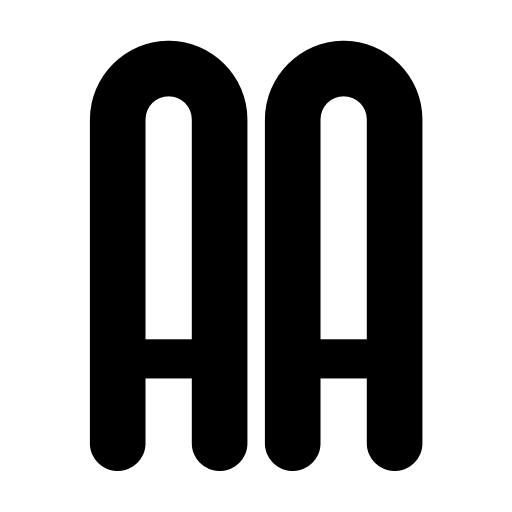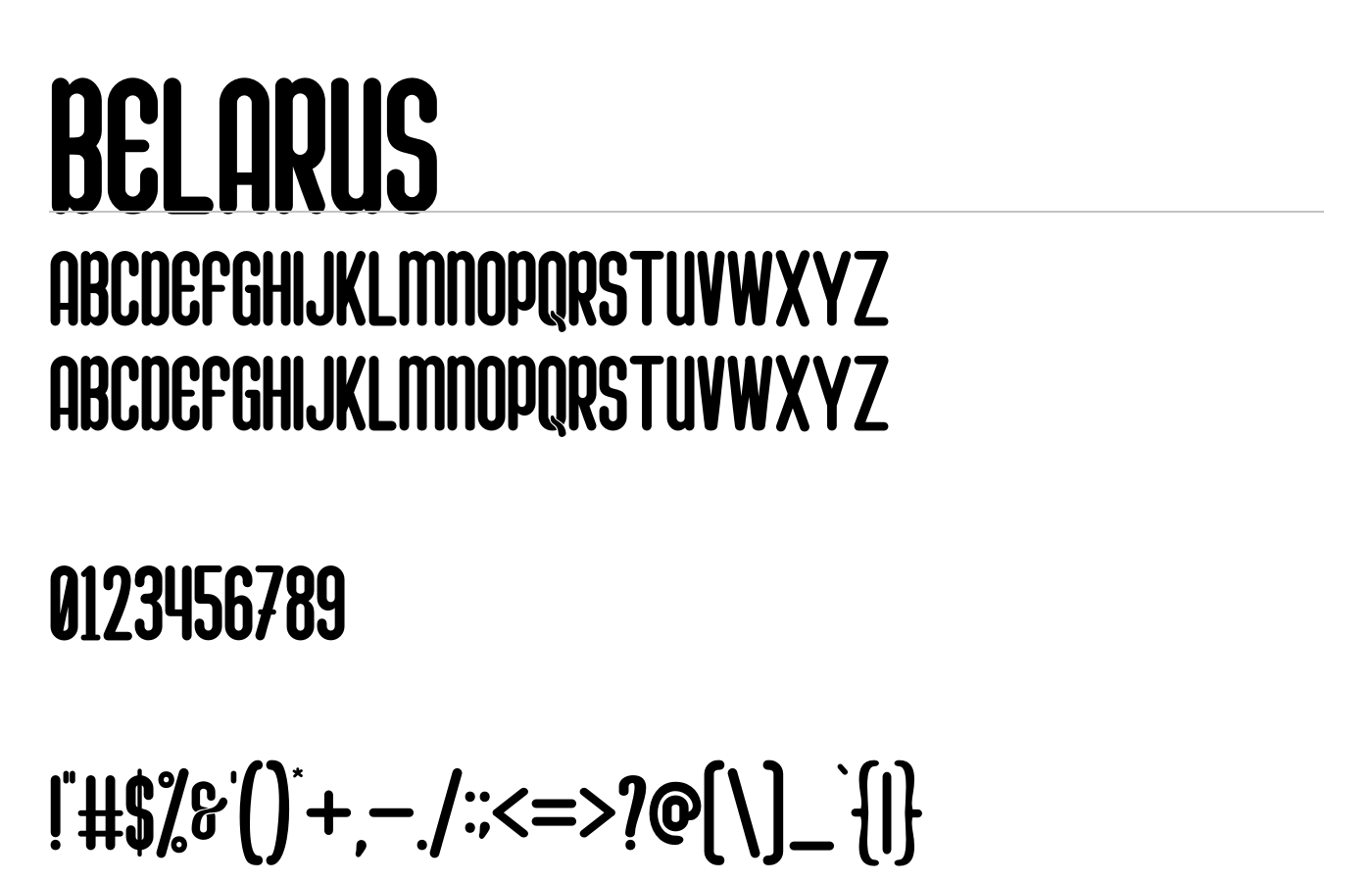
Belarus is a condensed sans serif font with a bold and modern character, featuring tall, narrow letterforms and rounded terminals that offer a friendly yet strong presence. Its uniform stroke weight and clean shapes make it highly legible and suitable for striking headlines, logos, and branding that demand a contemporary and confident look. This font works especially well in designs seeking a distinctive, urban feel with a touch of playfulness while maintaining professionalism.
Belarus Font
About Belarus Font